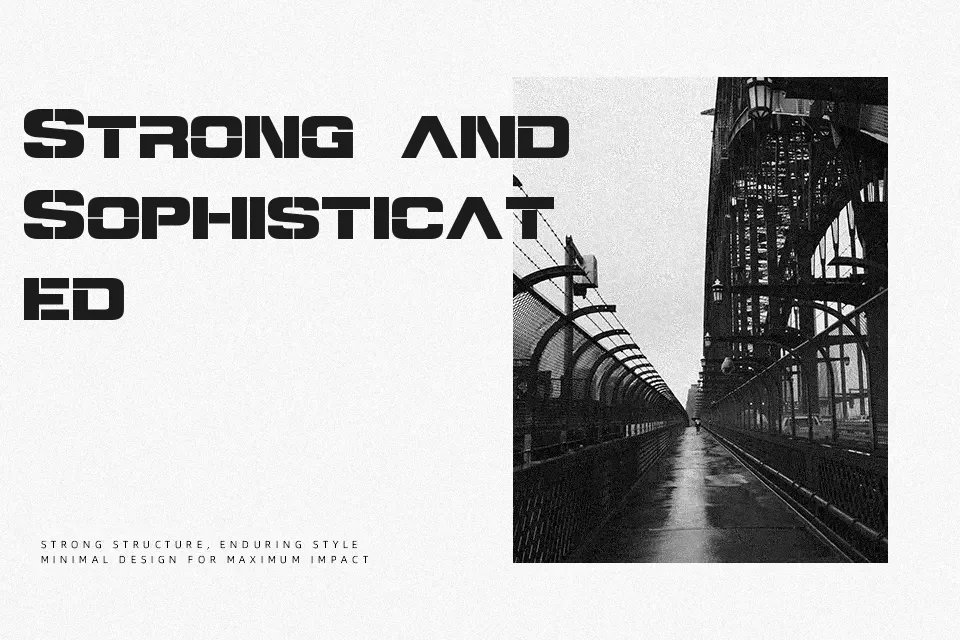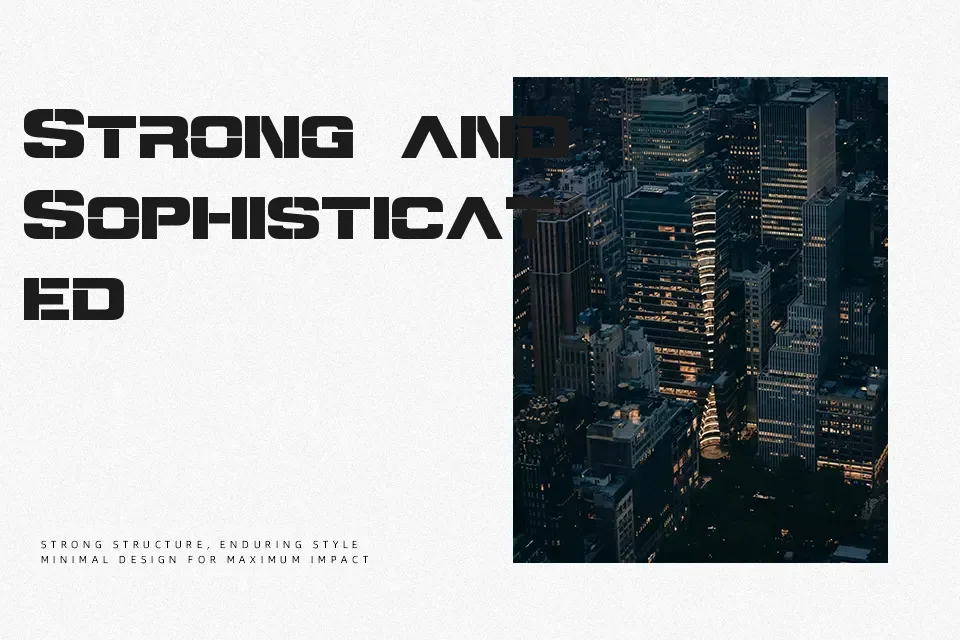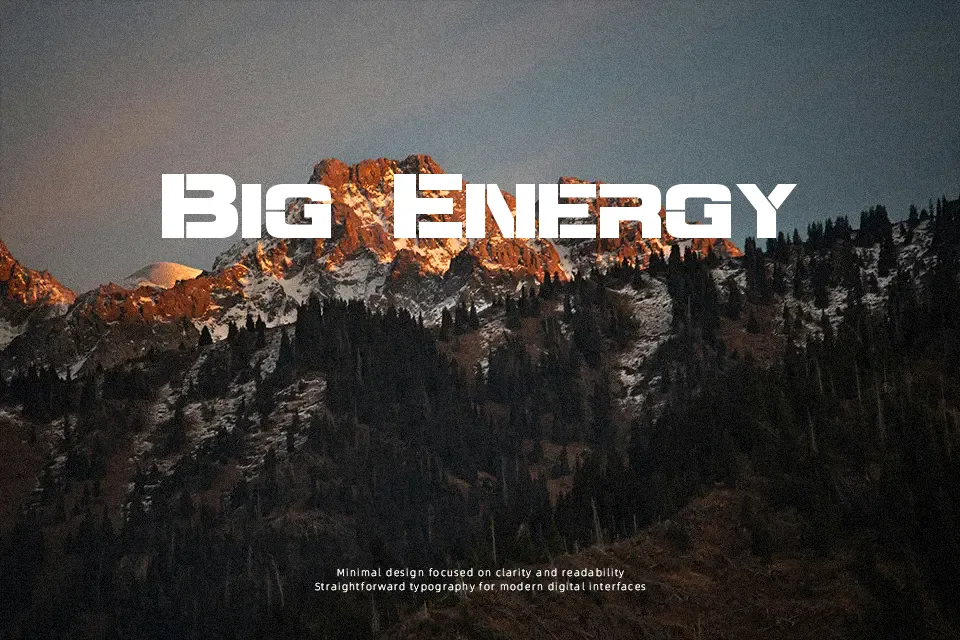
Steiner Font
Designed by Pixel Sagas
Steiner Font opens with an imposing display structure characterized by squared curves, uniform heavy strokes, and clean stencil bridges dividing each glyph. The horizontal expansion and consistent thickness give the letterforms a disciplined, robotic tone suitable for commanding viewer attention. Balanced spacing and distinct silhouette outlines maintain strong readability in prominent headers, video game covers, and apparel graphics. Because the dense weight and internal breaks crowd fine details, the typeface struggles in continuous paragraphs or tiny user interface labels. For optimal results, designers should restrict the design to compact display settings.
video game titles, action movie posters, esports branding, tactical merchandise packaging
continuous body text, dense mobile ui labels, editorial paragraph layouts, small spreadsheet data
Perfect for gaming, headline, and logo, with a bold and display style.